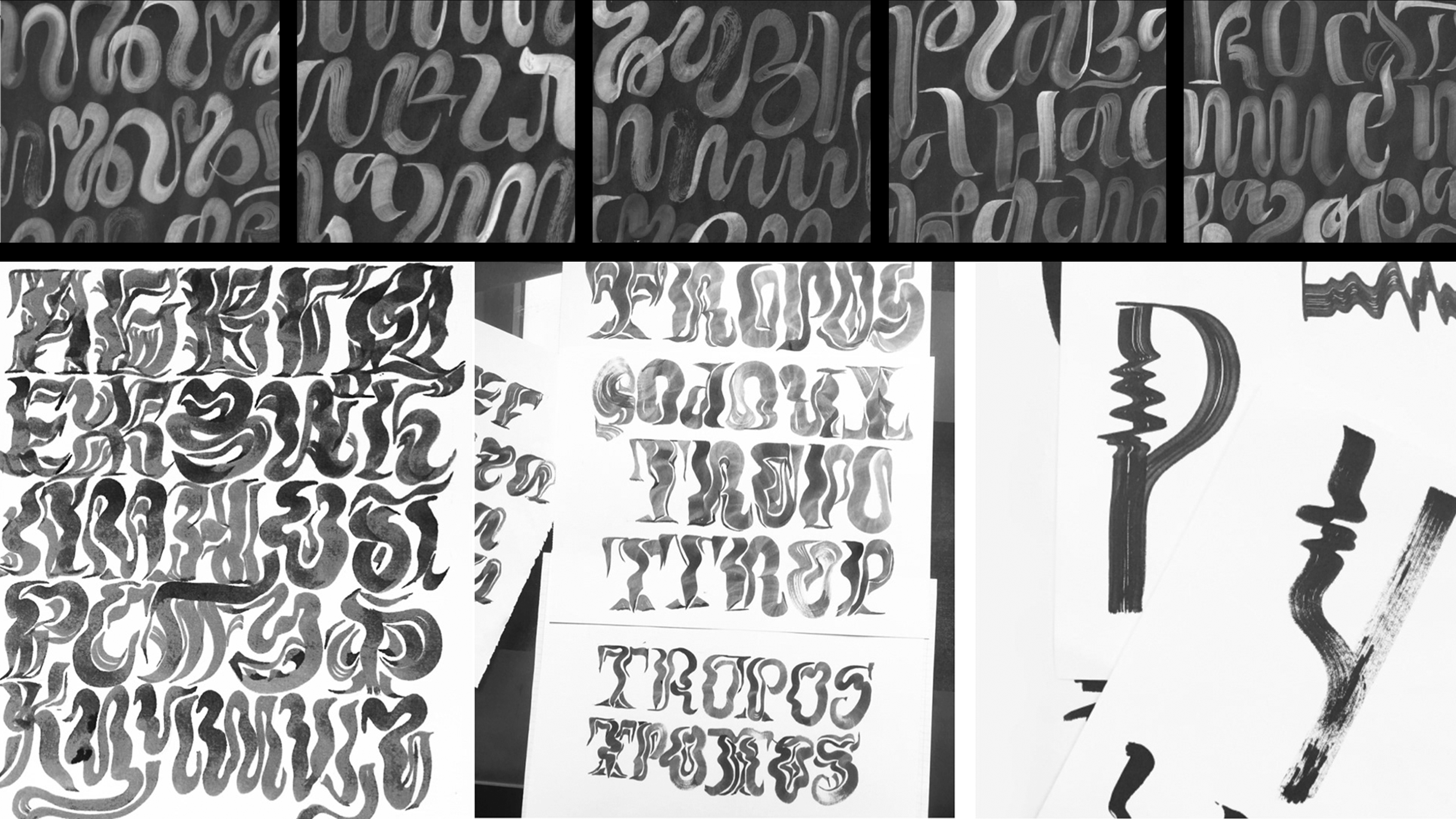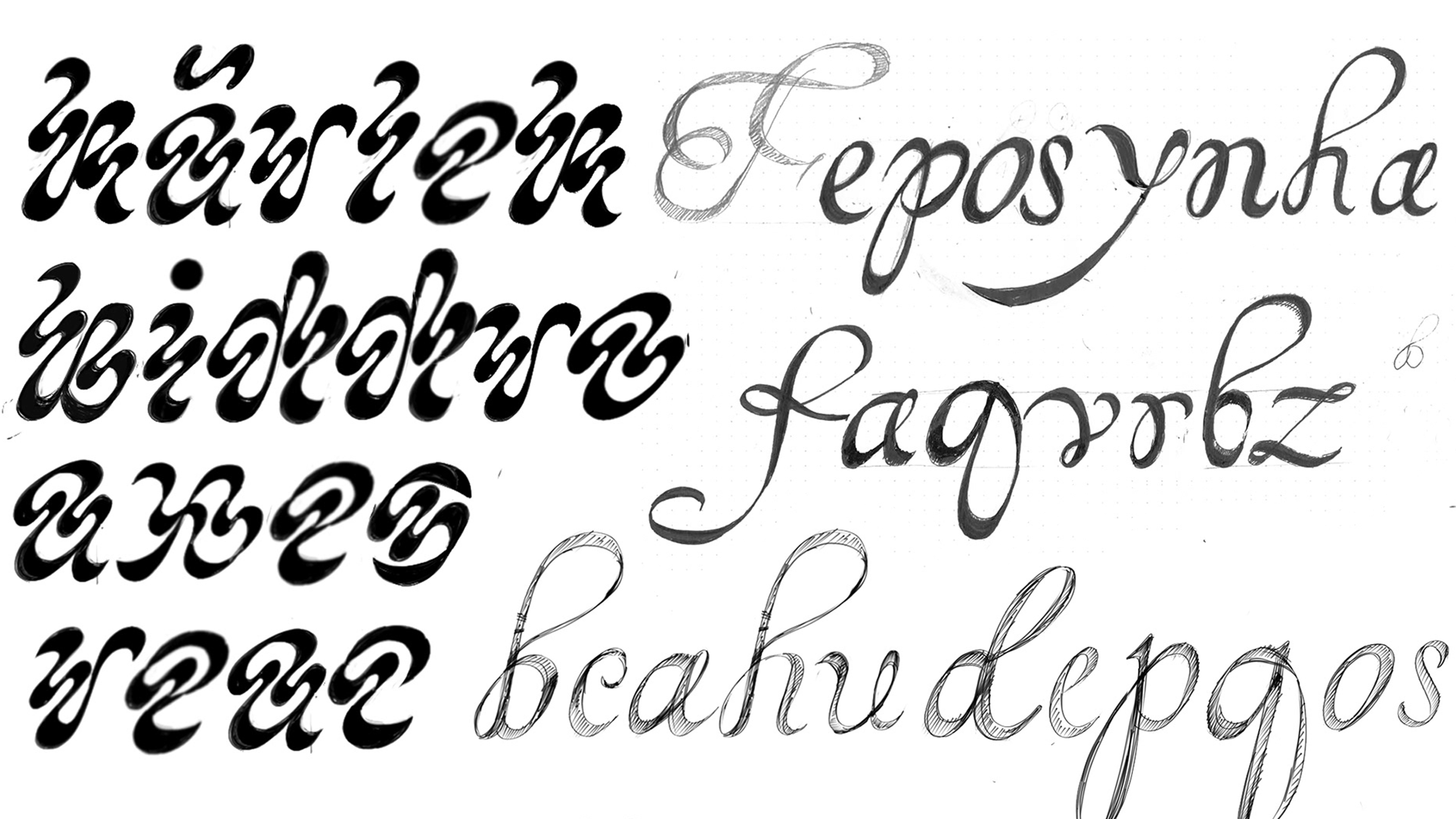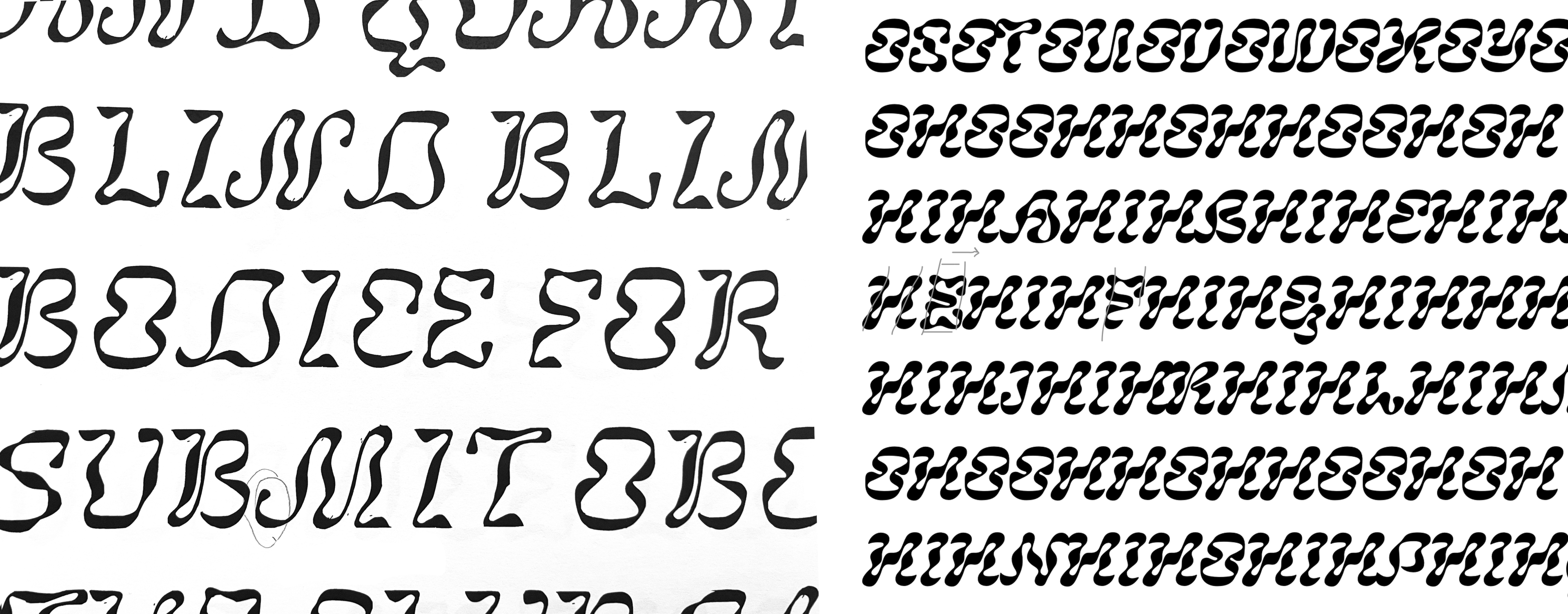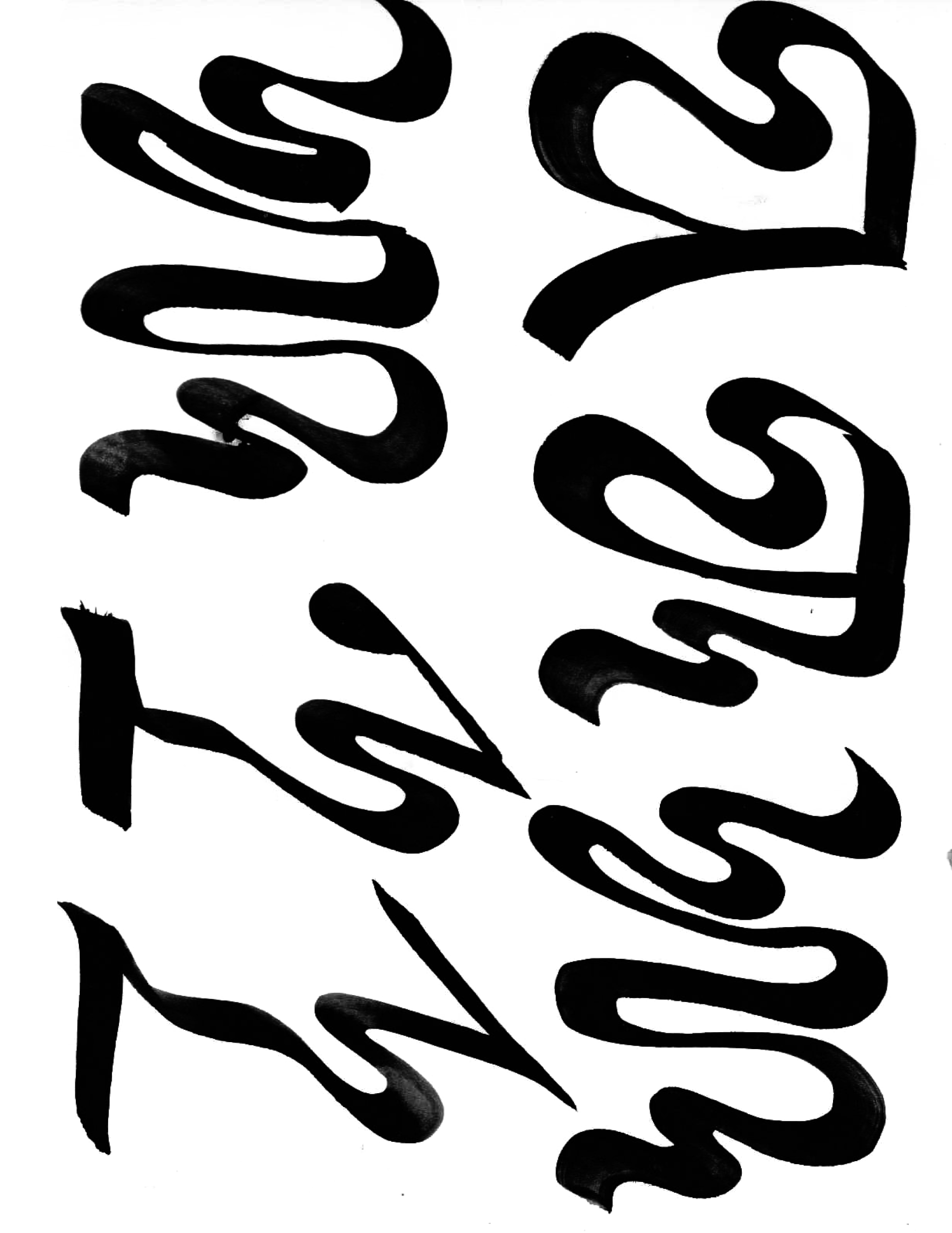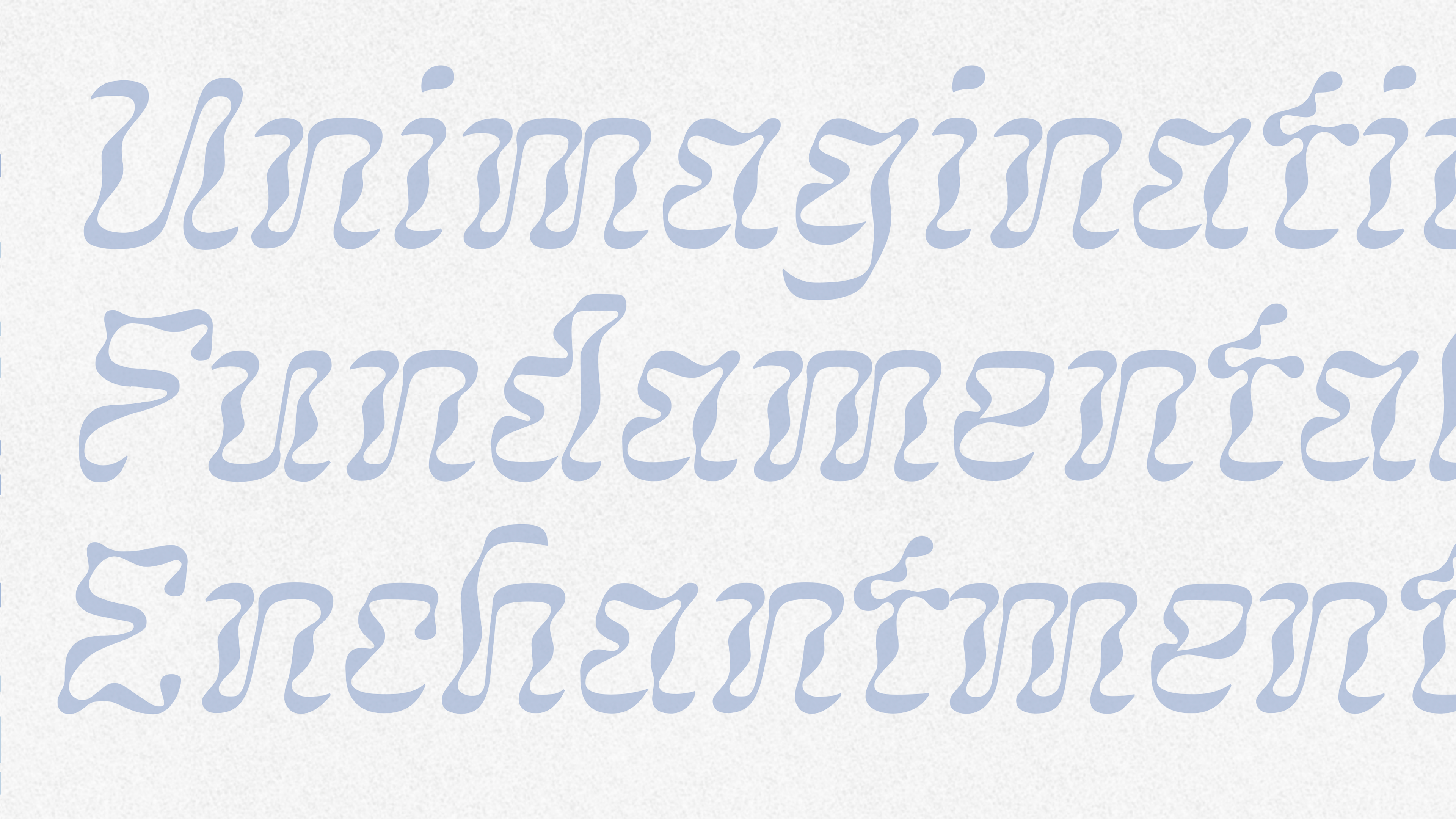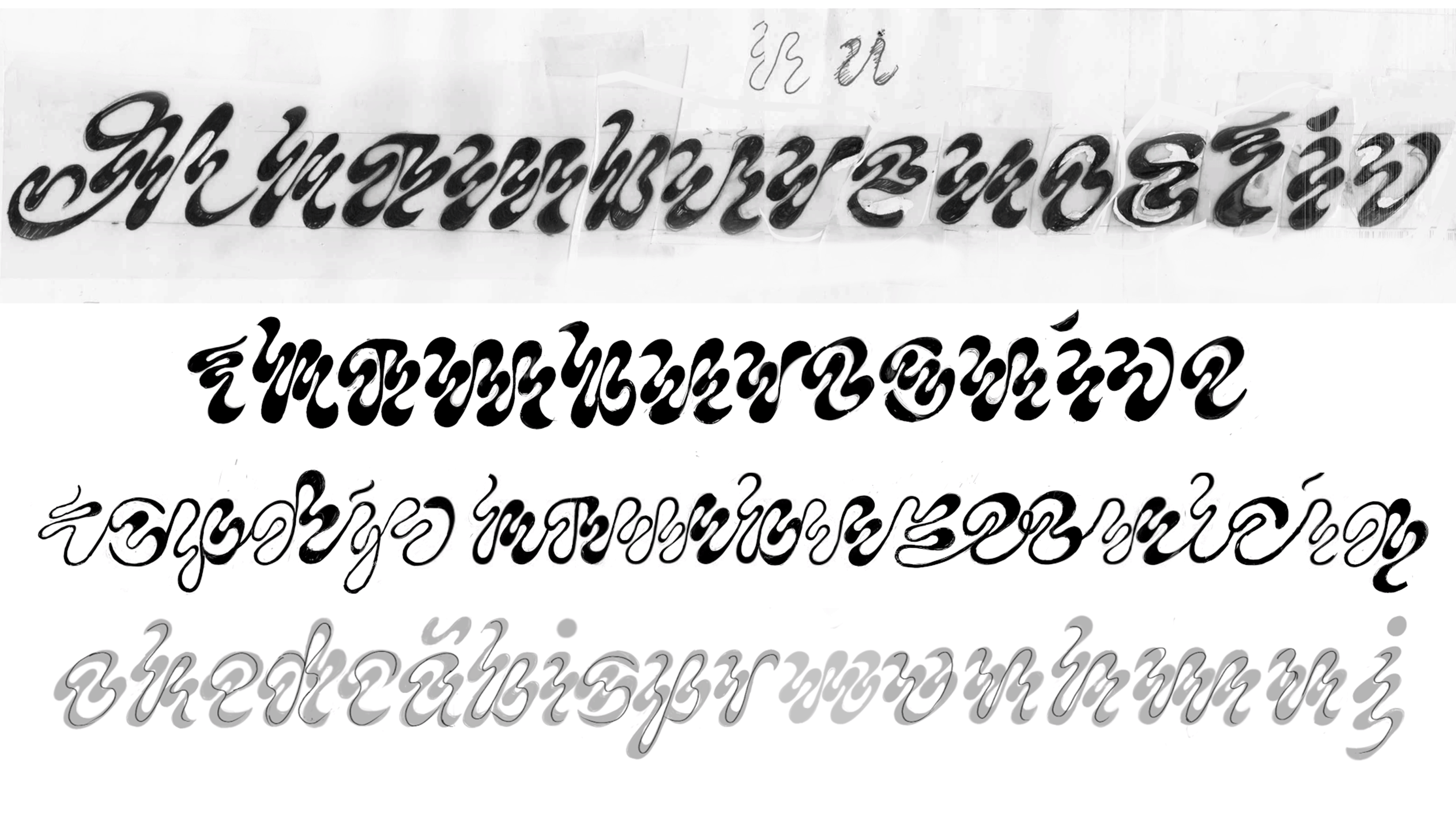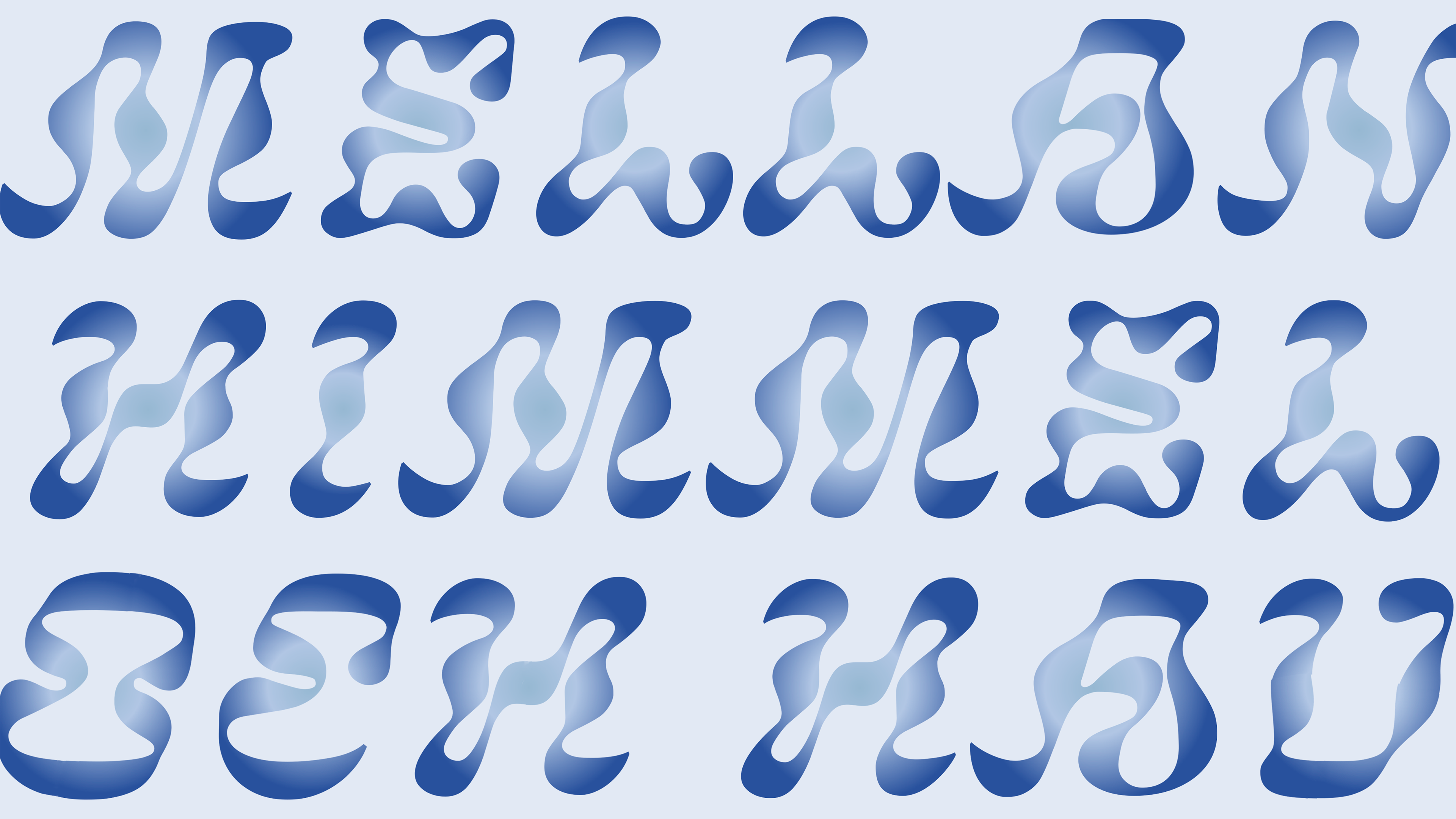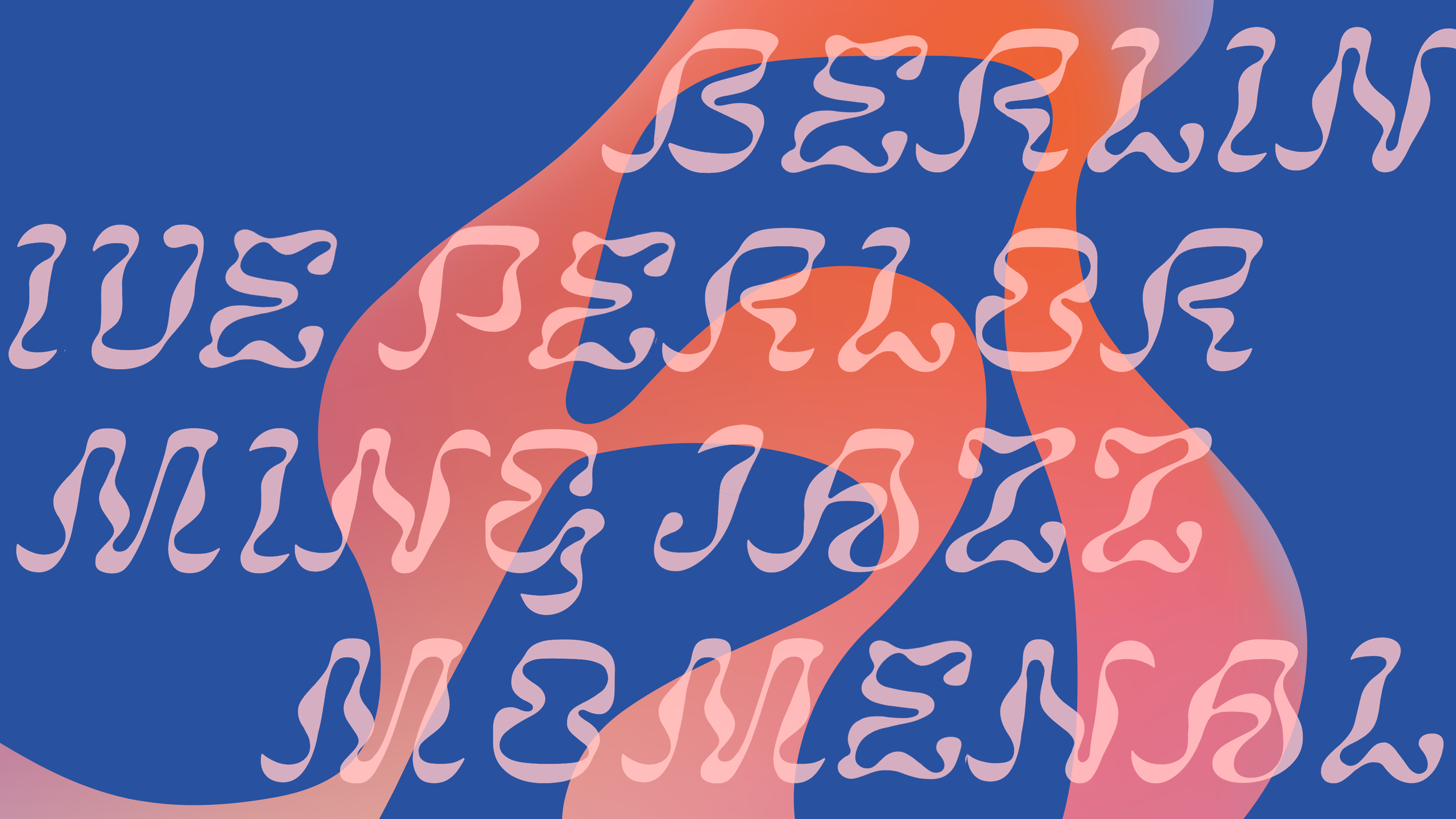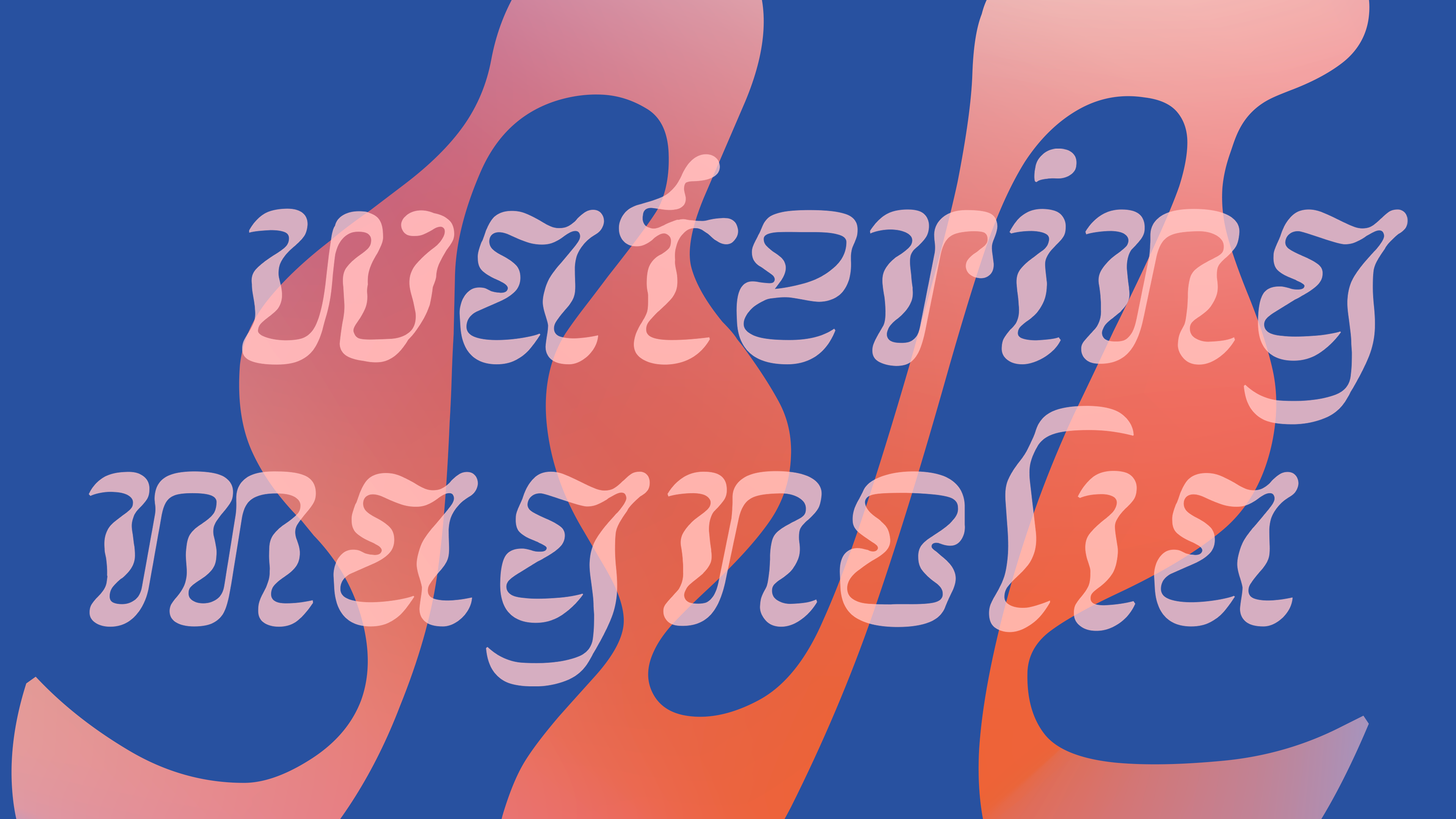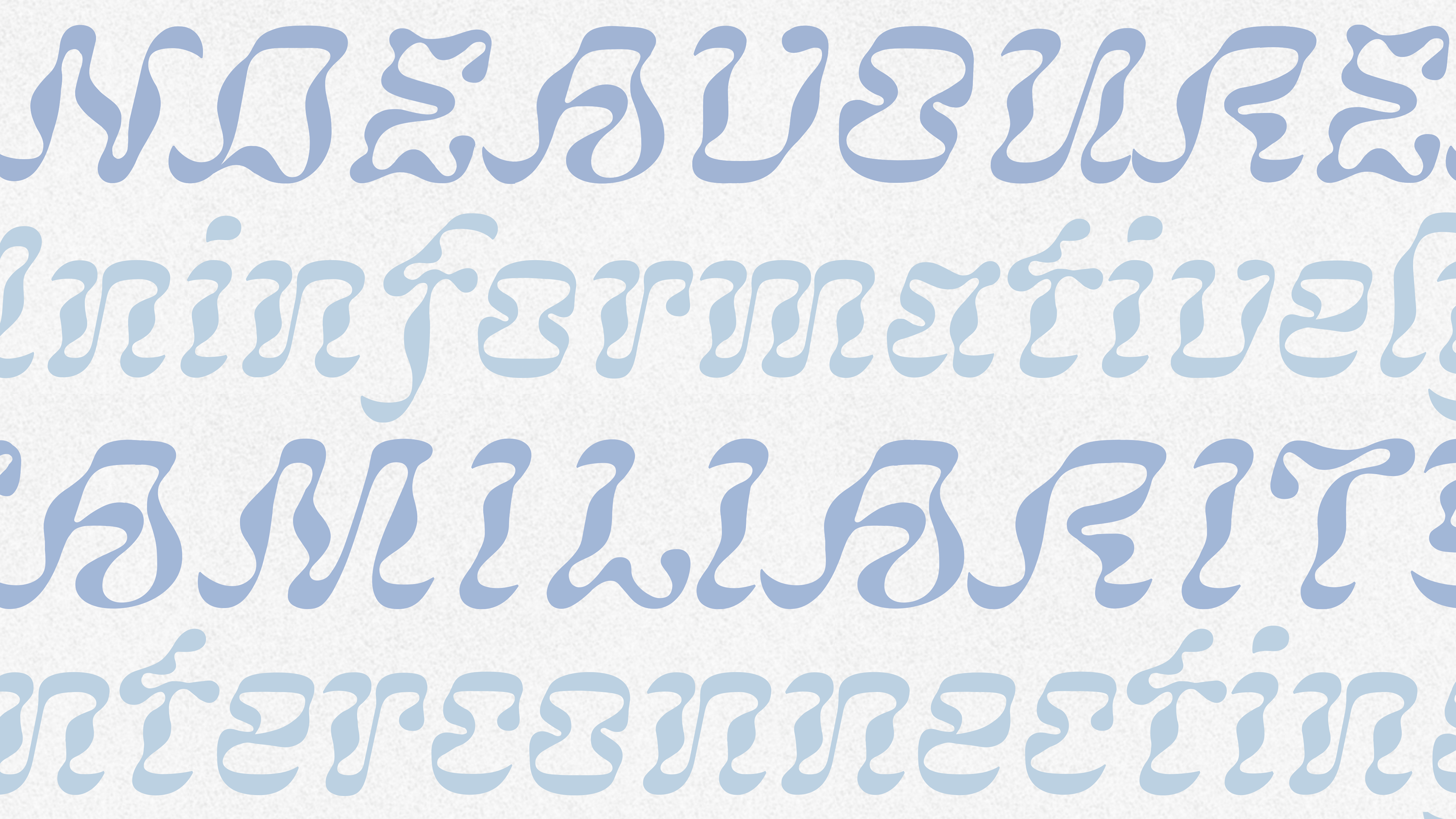
BLIAN is a variable display type system that explores the calligraphic principles and the movement of the brush.
BLIAN'S GOAL WAS EXPLORING CALLIGRAPHY AND THE MOVEMENT OF THE BRUSH, IN UNTRADITIONAL WAYS.
BLIAN started as a pattern script typeface that follows a cursive, flowing and organic CONSTRUCTION. THE STRUCTURE IS ALSO broken AND enclosed in itself. The system works as variable fonts that growS in weight.
After expERIMENTING WITH BRUSHES I decided to focus on taming some of the wild brush expressions. THIS LATER TURNED INTO an experimental variable type system.
Throughout the ideation process, I exhausted different contemporary and conventional ideas, a few of them ARE shown below,
How complex or simple could ONE go, with the cursive construction
I. formal, looping cursive direction. broad-nib pen
I was intrigued to find an organic and contemporary approach to my concept, so I kept experimenting with the brush rotation and the applied pressure while preserving the single movement cursive construction principle.
[1] inspiration from the cursive construction of the Fraktur and tHE BLACKLETTER
[2] EXPLORATION OF A pattern-like typefacE
[3] Creating a monospaced pattern-like script typeface that connects vertically and horizontally provided
Improving legibility by simplifying the skeleton
Varying contrast and vertical connections